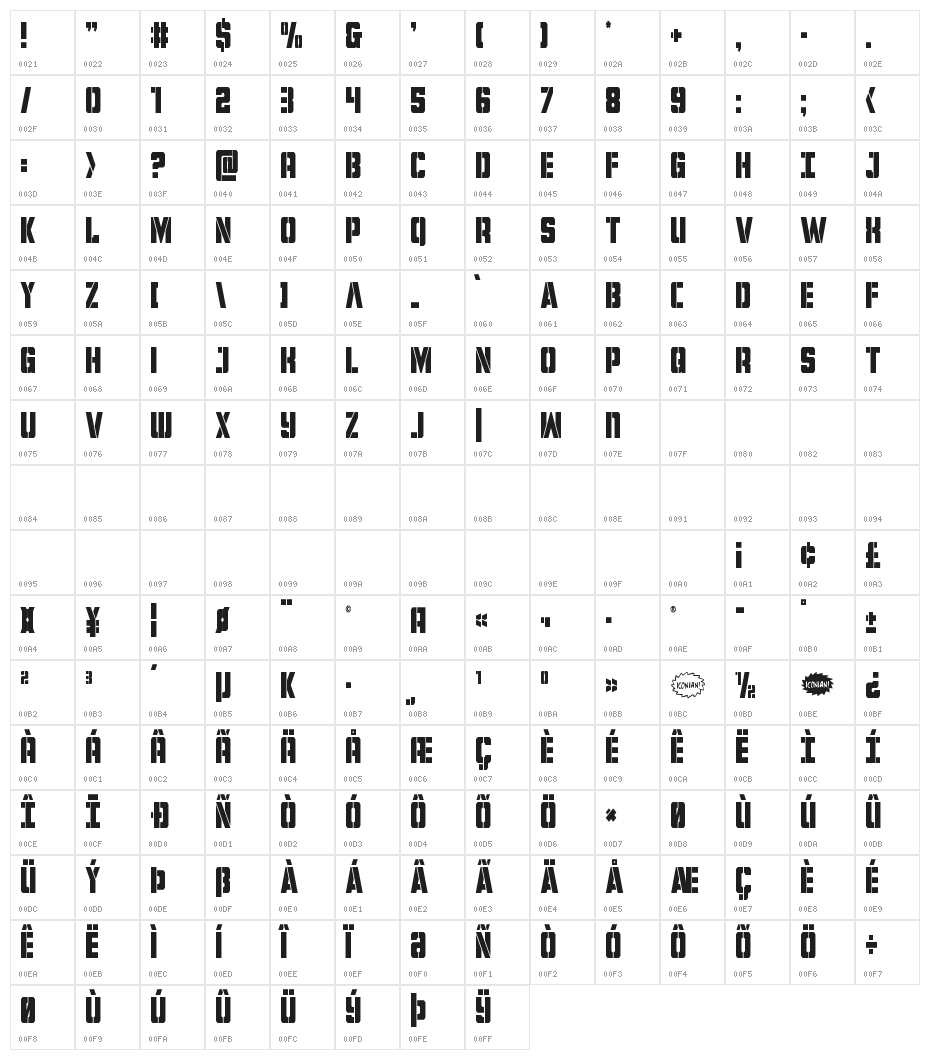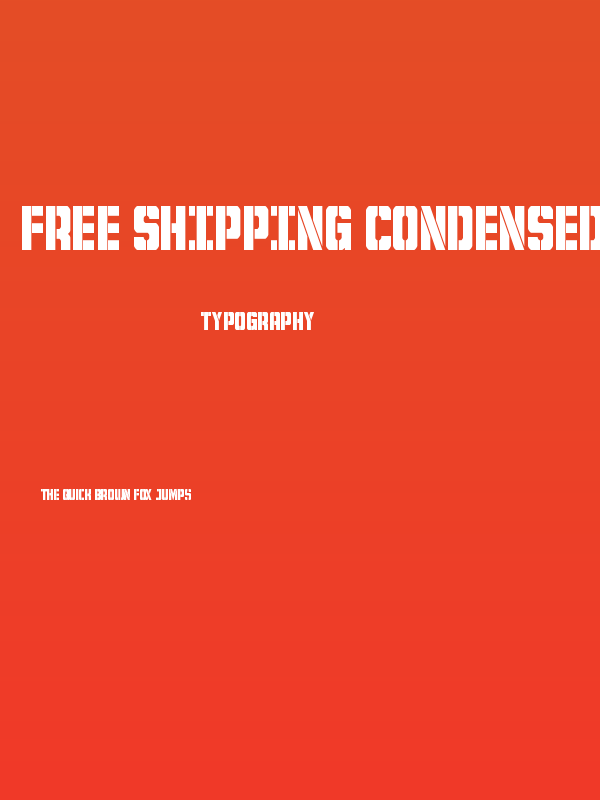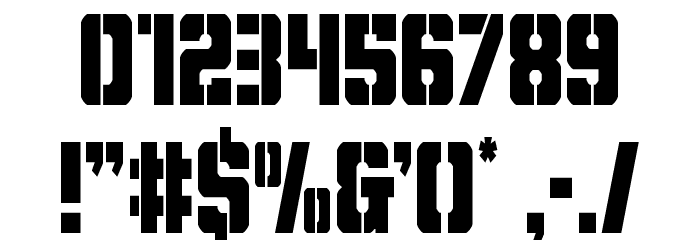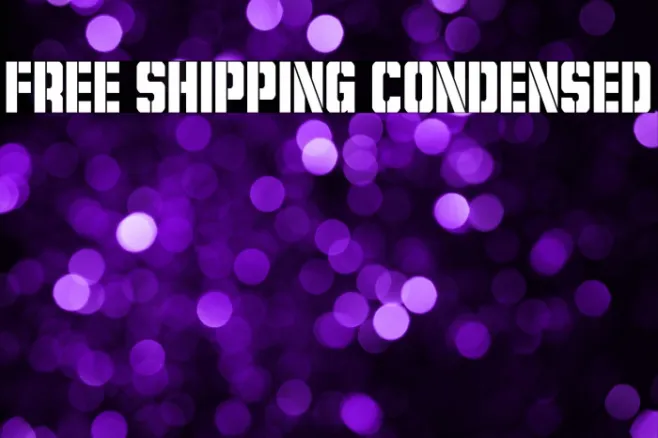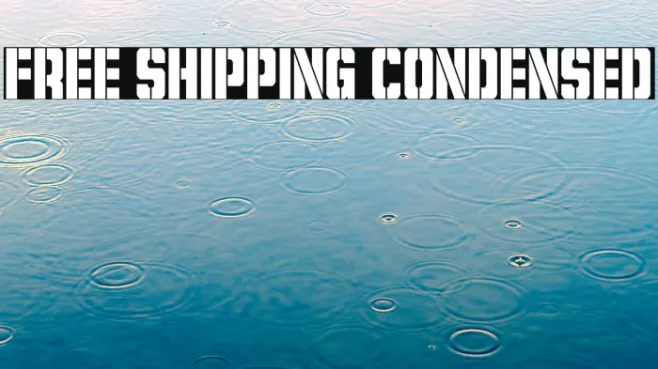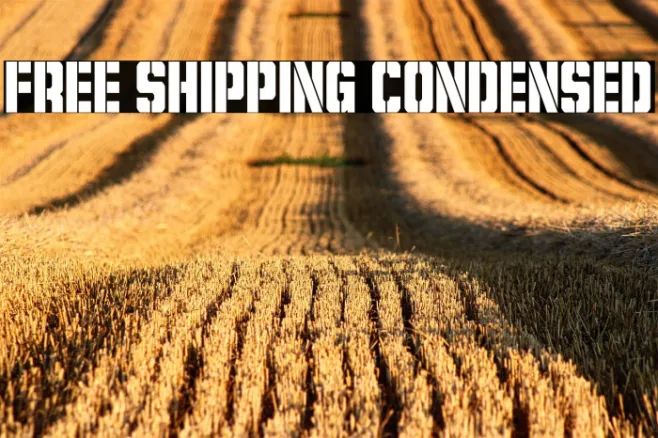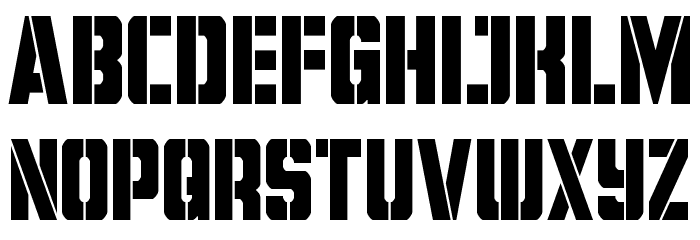
Free Shipping Condensed Font
Free Shipping Condensed Description
This font features a bold, condensed style with a strong industrial and modern aesthetic. The characters are uniformly thick, with a stencil-like appearance that creates a sense of strength and durability. The uppercase letters are particularly striking, with sharp angles and a blocky form that commands attention. The numbers and special characters maintain this robust design, ensuring consistency across all elements. The font's condensed nature allows for efficient use of space, making it ideal for impactful headlines and signage where space is limited but visibility is crucial.
| Use Case | Headlines, Logos, Signage |
| Proposed Projects | Ideal for branding, posters, signage, and any project requiring a strong, impactful typeface. |